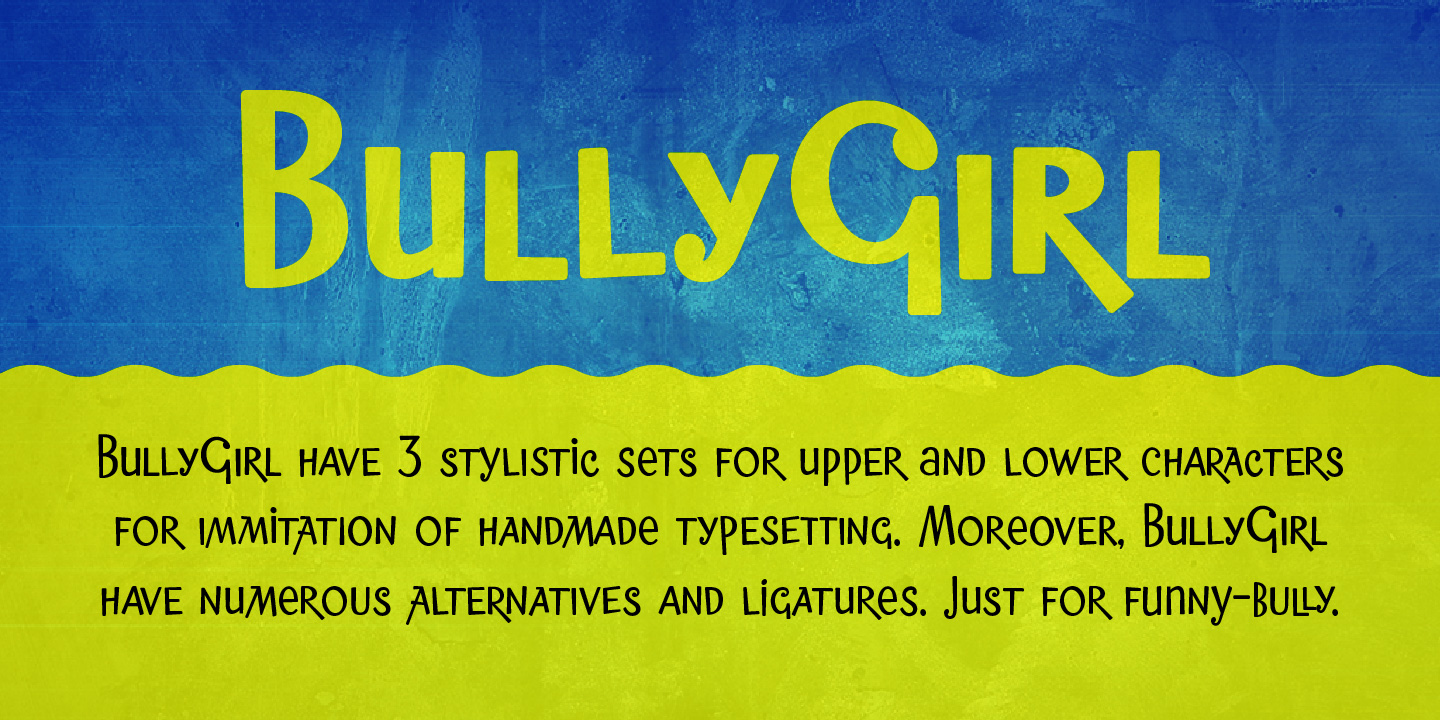
BullyGirl Font is perfect for empowerment campaigns, strong female branding, confident fitness logos, assertive fashion statements, bold activism posters, rebellious girl power merchandise, fierce beauty brands, and unapologetic lifestyle communications.
What makes BullyGirl Font exciting is its fearless attitude and bold confidence that embodies female strength and uncompromising self-expression. The powerful letterforms and defiant character design create an atmosphere of empowerment that refuses to be ignored while celebrating fierce femininity and authentic rebellion.
BullyGirl Font family includes regular, bold, condensed, grunge, and rebel versions, plus empowerment symbols, fierce ornaments, and strong decorative elements that enhance the powerful typography experience with authentic girl power energy.
Unleash your inner strength with BullyGirl Font Free Download, the ultimate choice for brands celebrating fearless femininity and uncompromising authenticity. This commanding typeface embodies the spirit of modern female empowerment through letterforms that refuse to whisper when they should roar with confidence and determination. The expertly crafted characters feature bold proportions that demand attention while projecting the kind of strength that inspires other women to embrace their own power. Empowerment brands and fierce female entrepreneurs consistently select this font for projects requiring authentic connection to contemporary feminism combined with unapologetic market presence. Its comprehensive collection of empowering elements provides unlimited possibilities for creating memorable campaigns that celebrate women who refuse to shrink themselves for anyone's comfort. Experience the liberating power of fearless typography that transforms standard communications into declarations of independence, establishing your brand as a champion of authentic female strength in today's evolving landscape of gender empowerment.